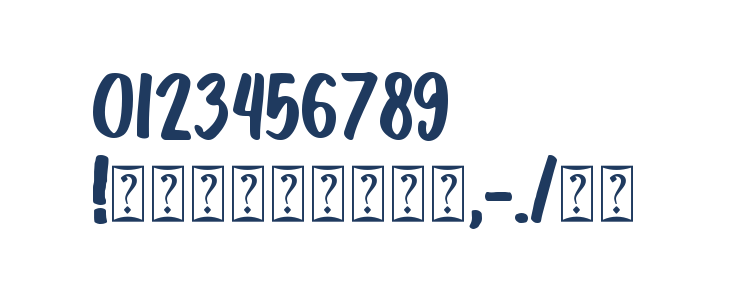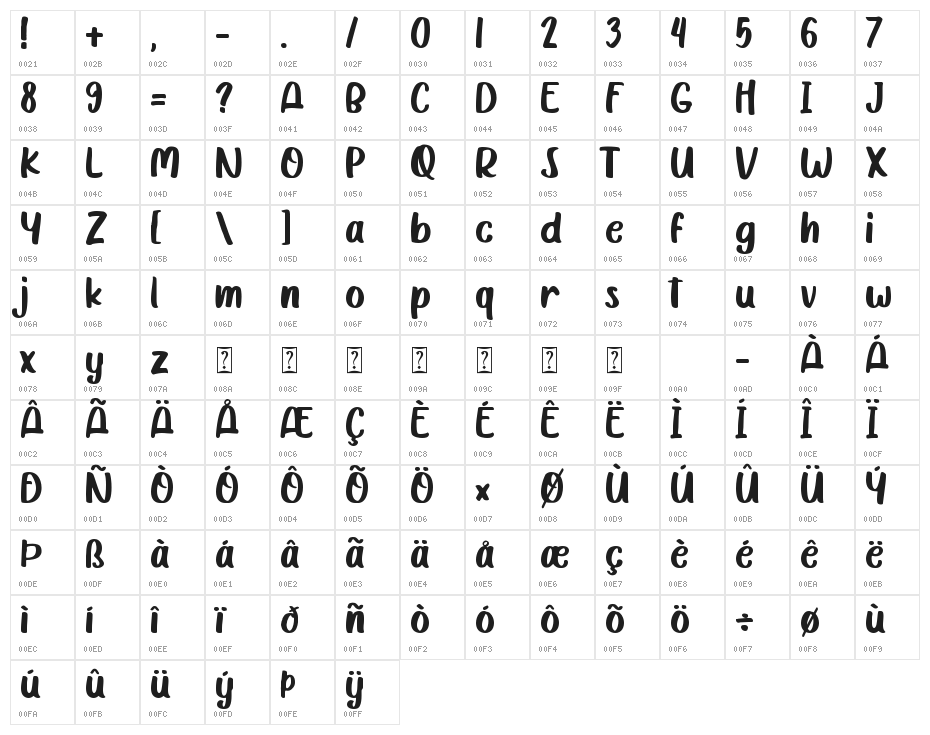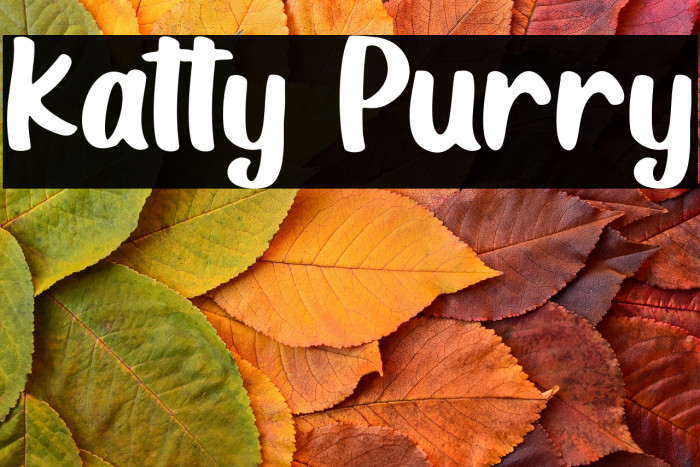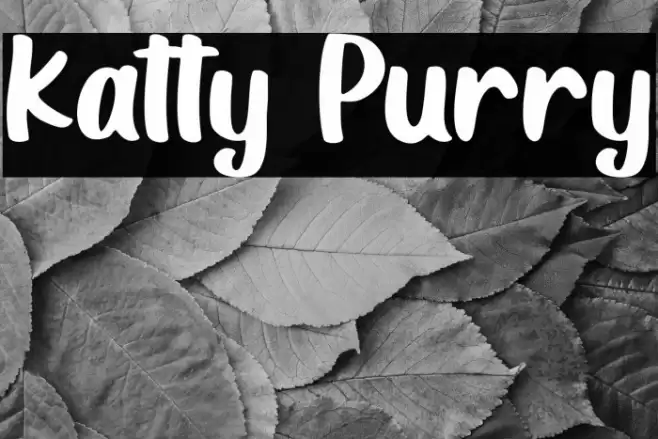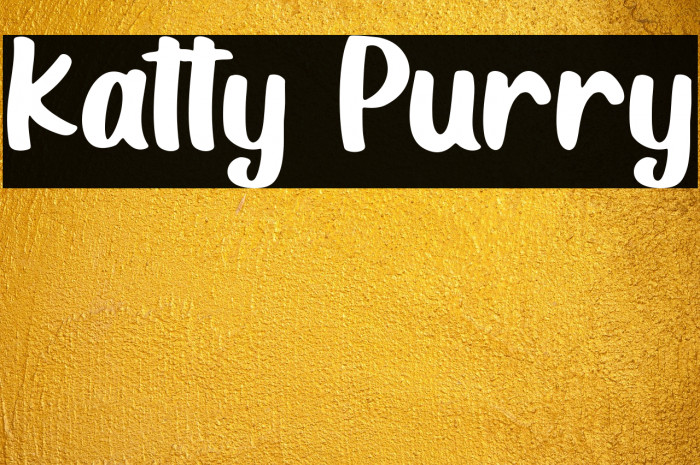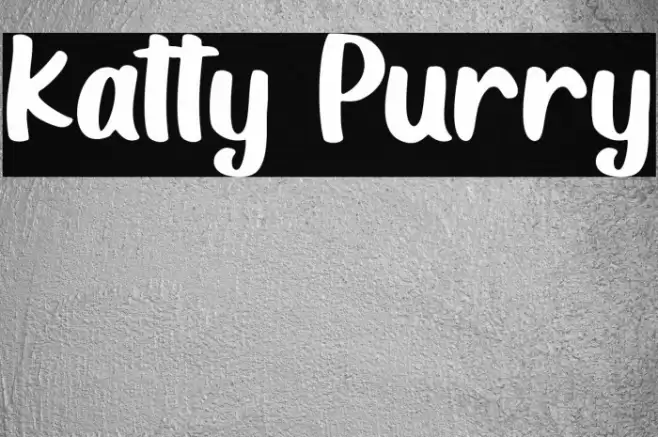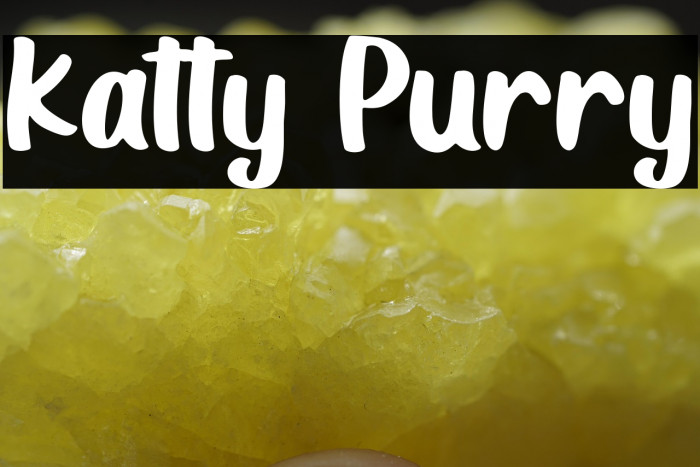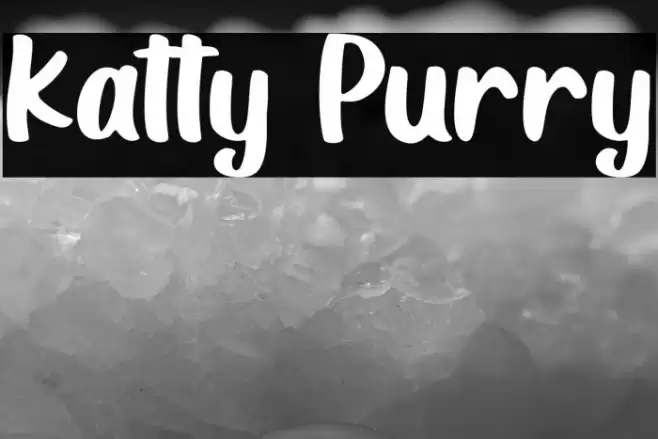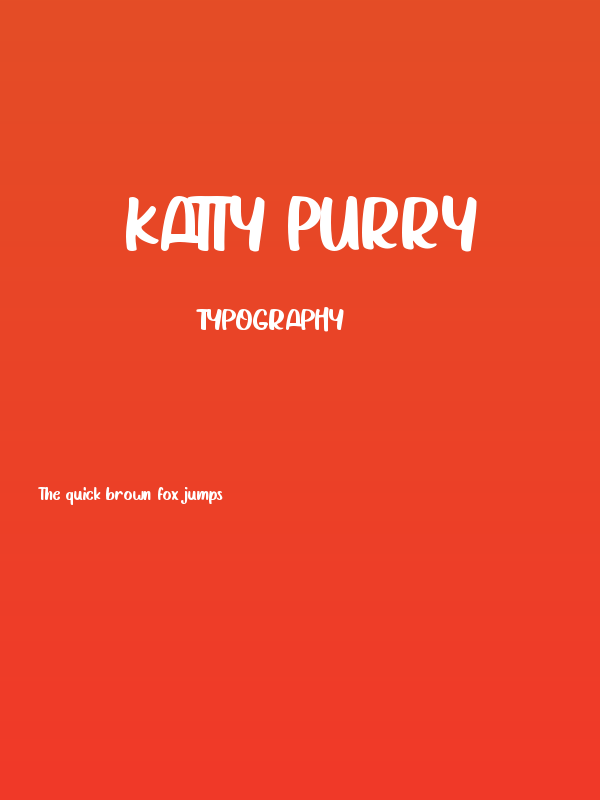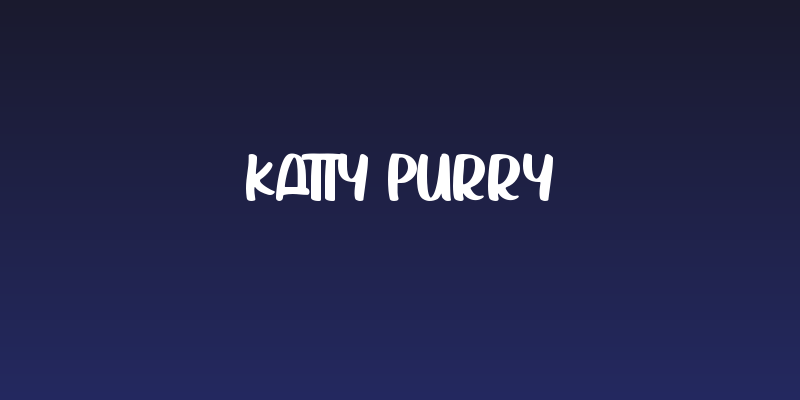
Katty Purry Font
Katty Purry Description
This playful and bold font features a handwritten style with a smooth, rounded appearance. The characters are thick and slightly irregular, giving them a whimsical and friendly feel. The uppercase and lowercase letters are well-balanced, maintaining a consistent flow throughout the alphabet. Numbers and special characters are designed with the same playful aesthetic, making them easily readable. The font's overall style is casual and approachable, suitable for projects that require a touch of personality and warmth.